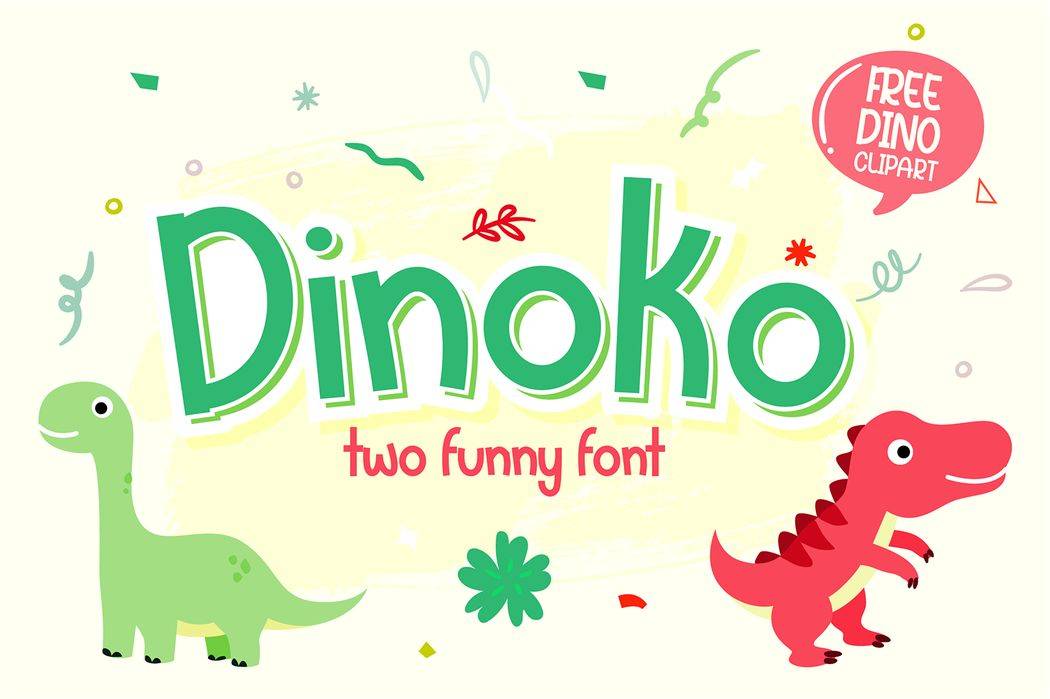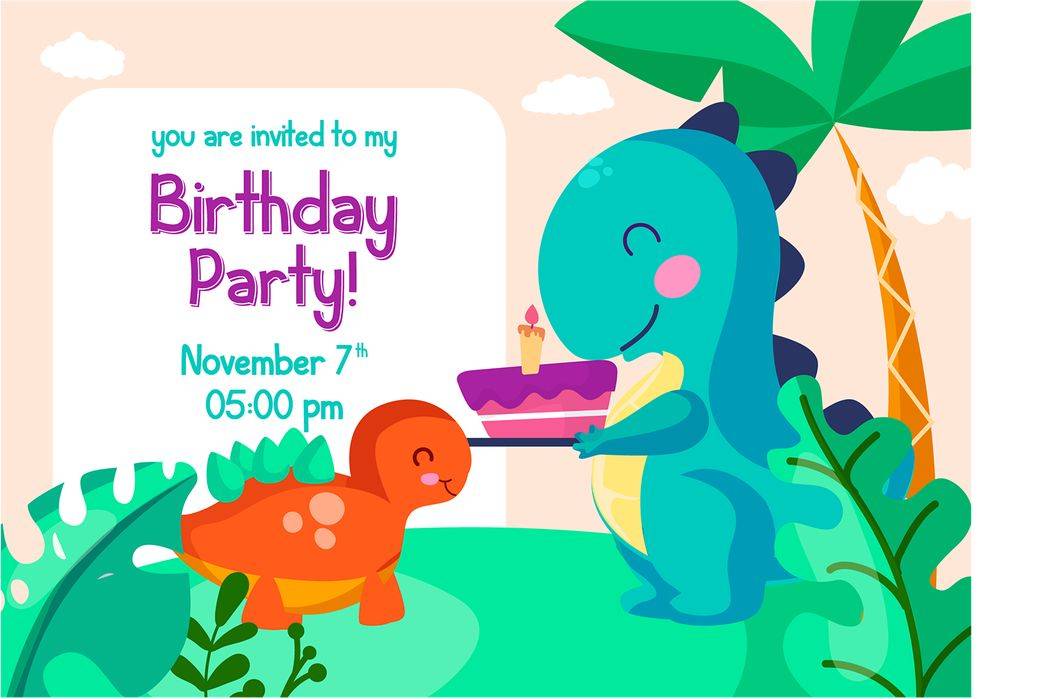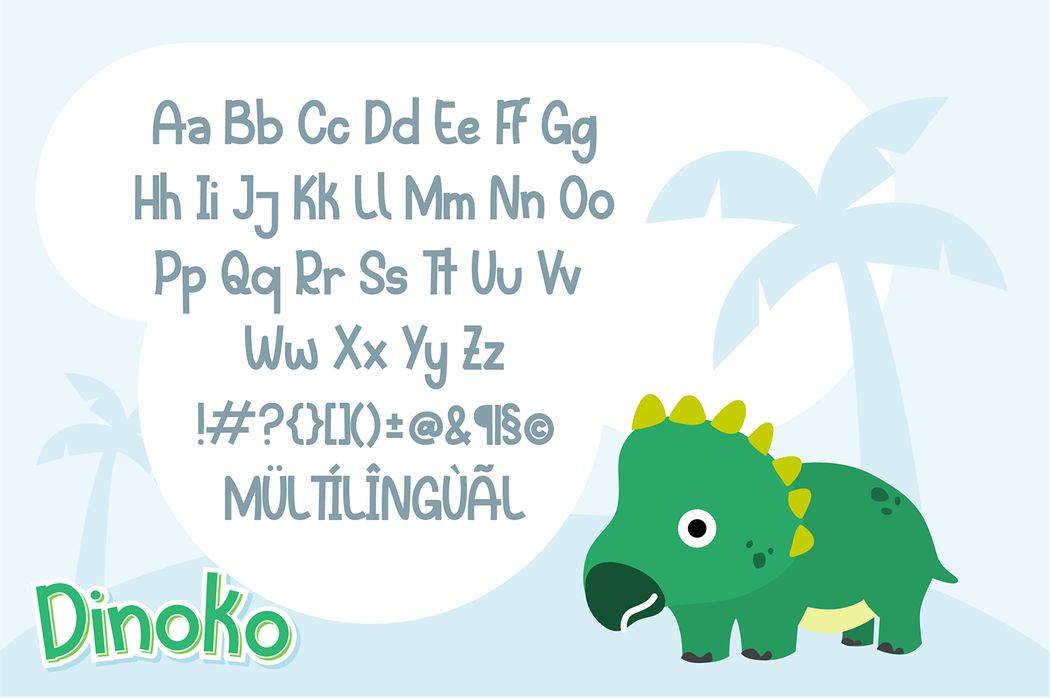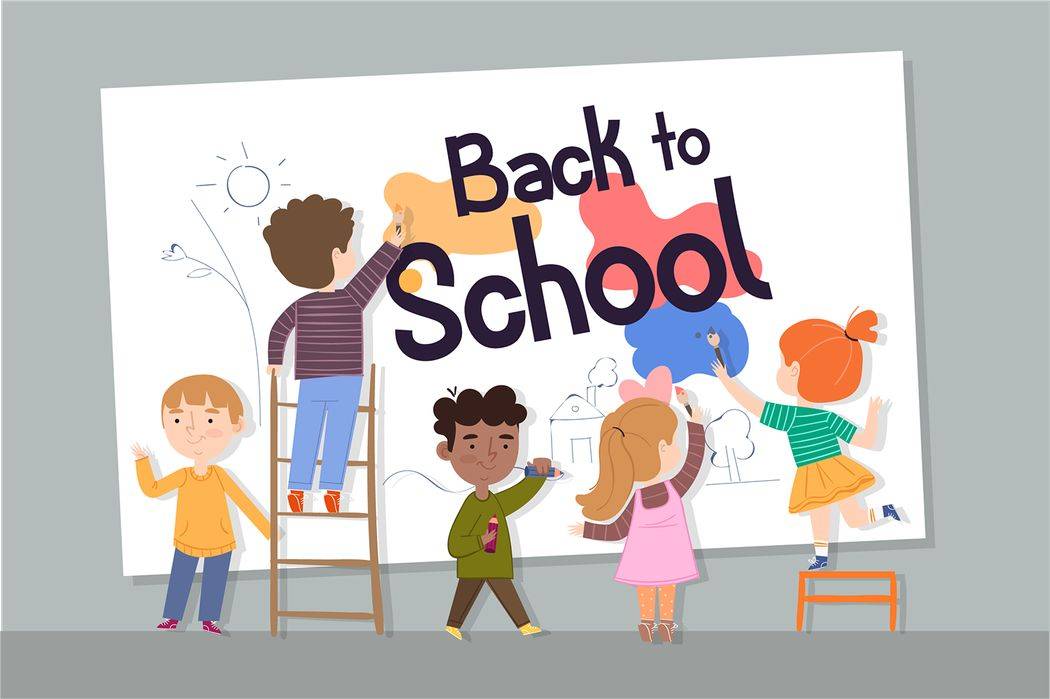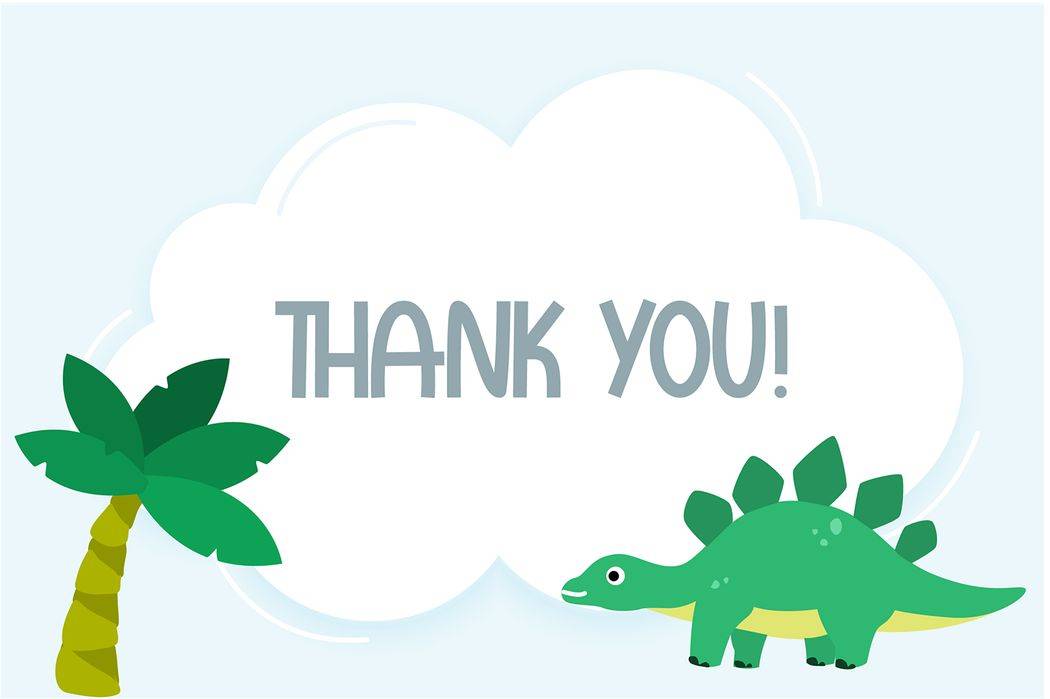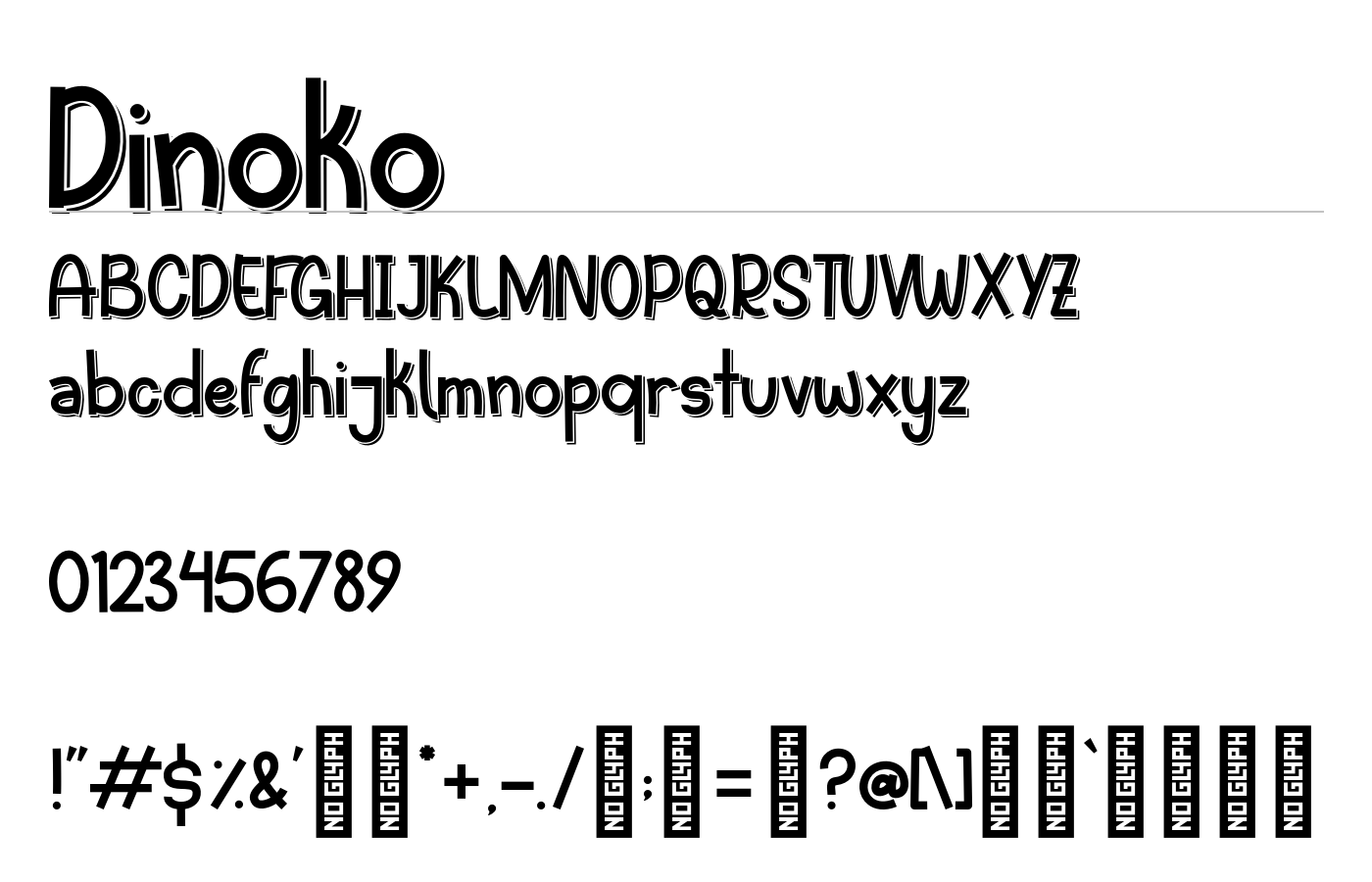
Dinoko is a playful sans-serif font characterized by its bold weight and quirky, hand-drawn style with irregular, slightly condensed letterforms and distinctive shadow-like outlines. It has a lively, informal feel that makes it ideal for fun, creative projects such as posters, children's books, and casual branding where a friendly and energetic vibe is desired.
Dinoko Font
About Dinoko Font